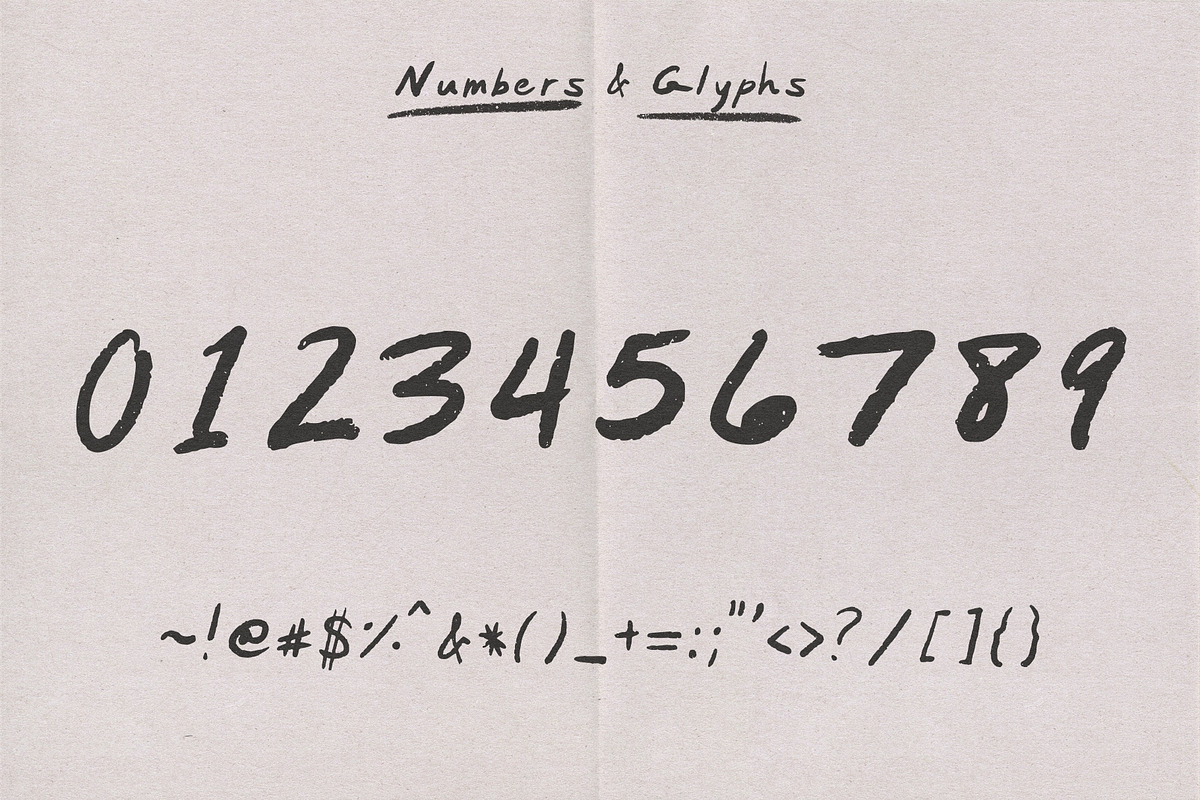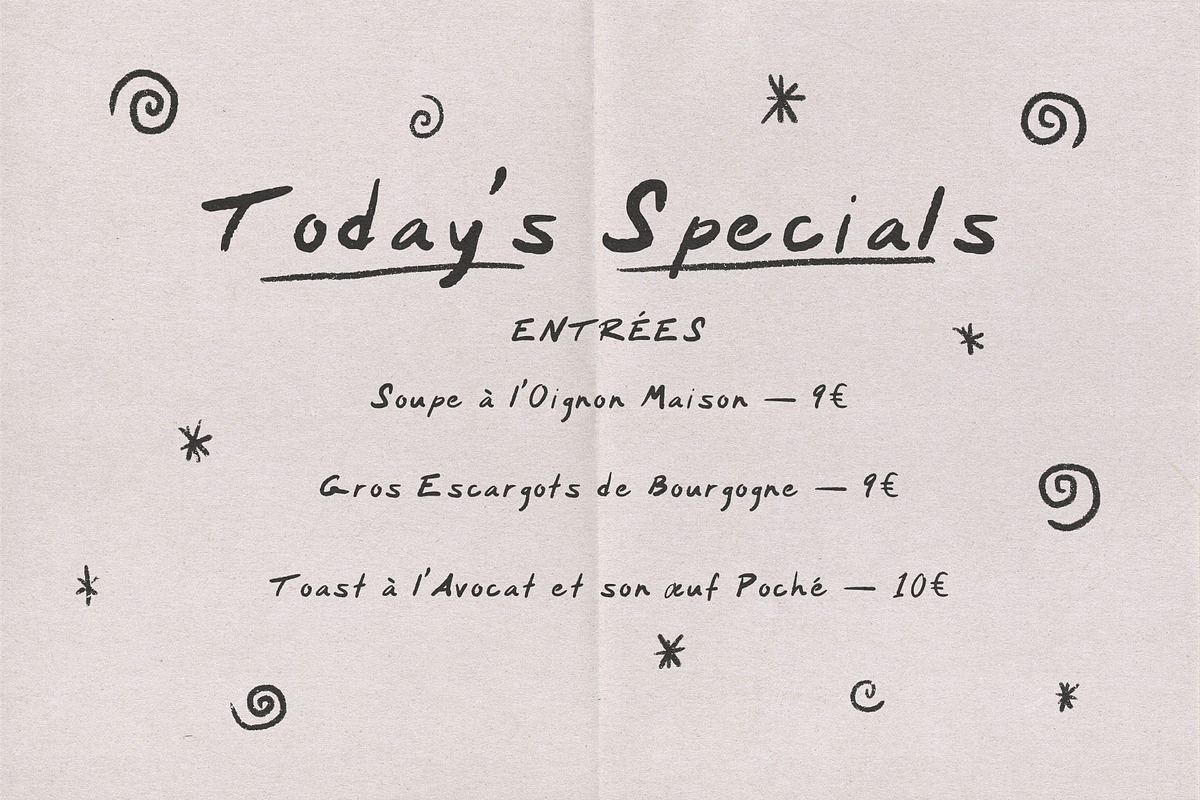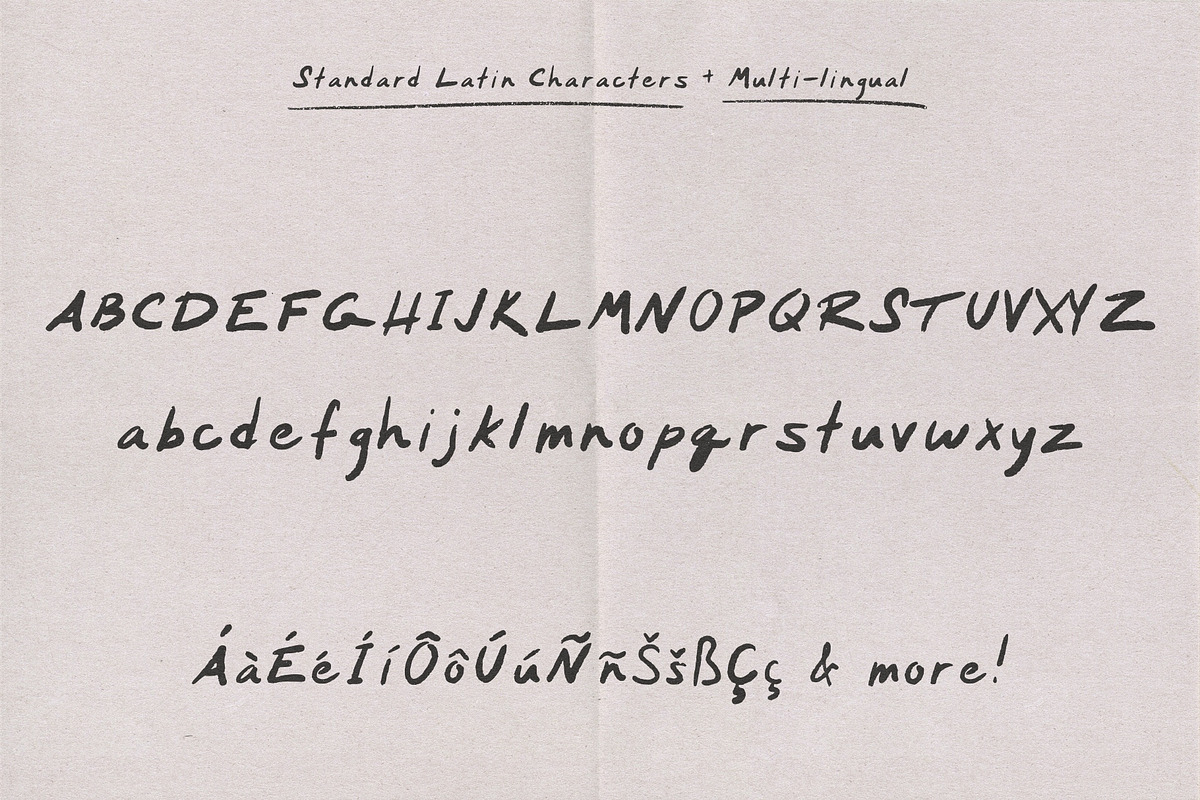
Graze Font is a handwriting and lettered by hand in California. It looks Italian and sounds French, but it’s actually a made up word for this fully functional typeface. This is a laid back handwriting font that can add subtle texture to any project. It is perfect for branding, logos, stationary, and more.
Features
- Uppers & Lowers
- Standard Latin characters, numerical, punctuation, mathematical symbols, all accent marks
Graze Handwriting Font Preview
This preview highlights the unique shapes and multi-height variations of the Graze Handwritten Font.